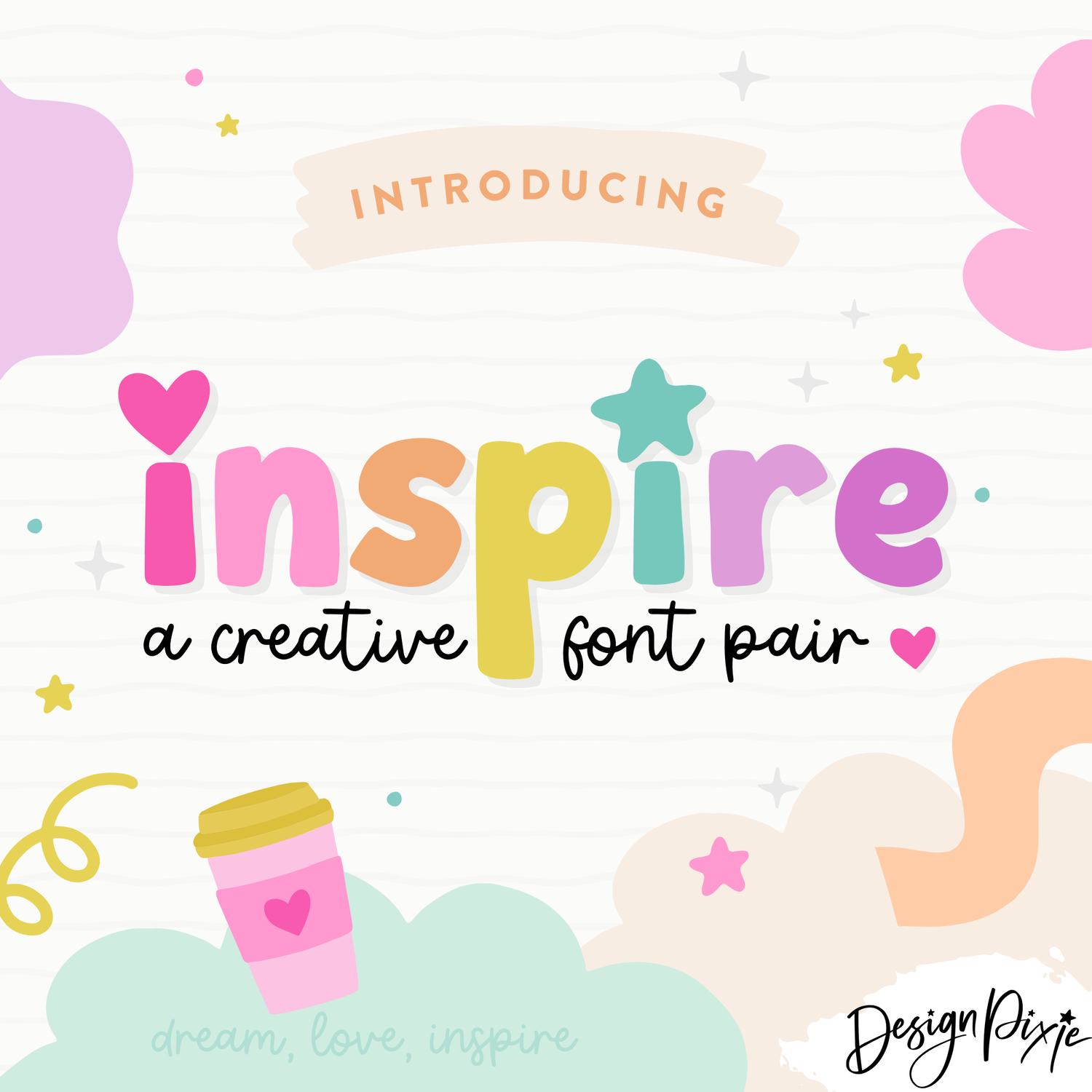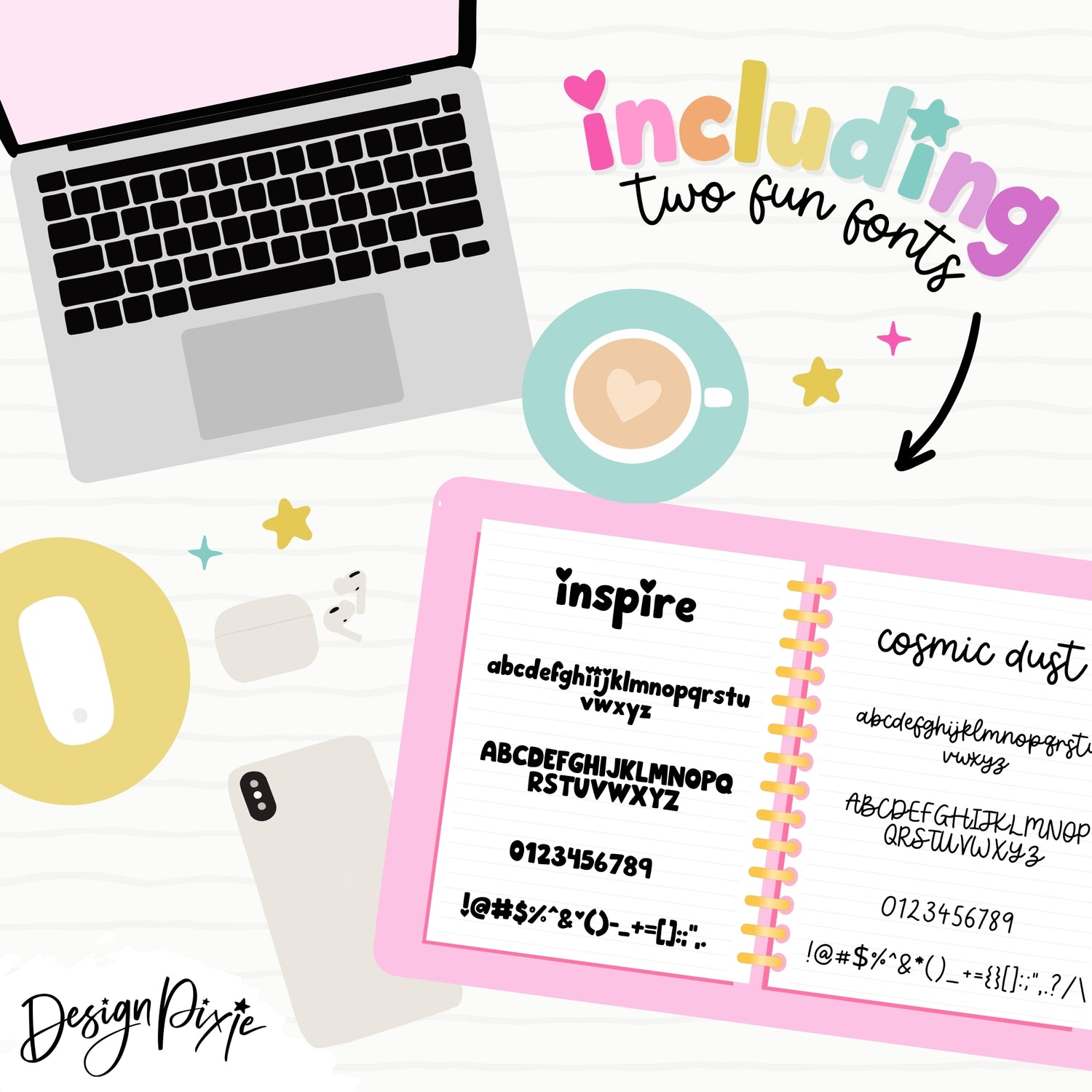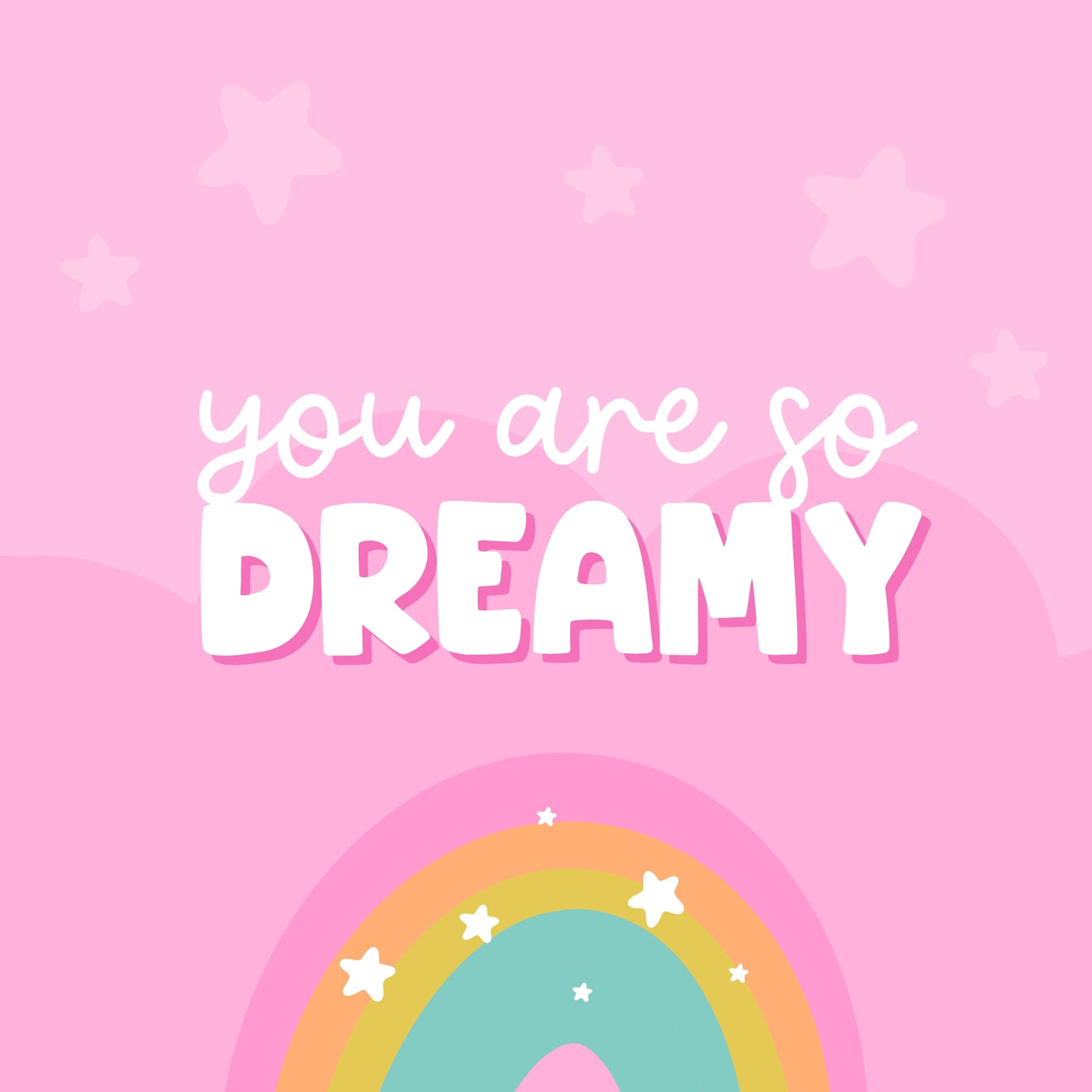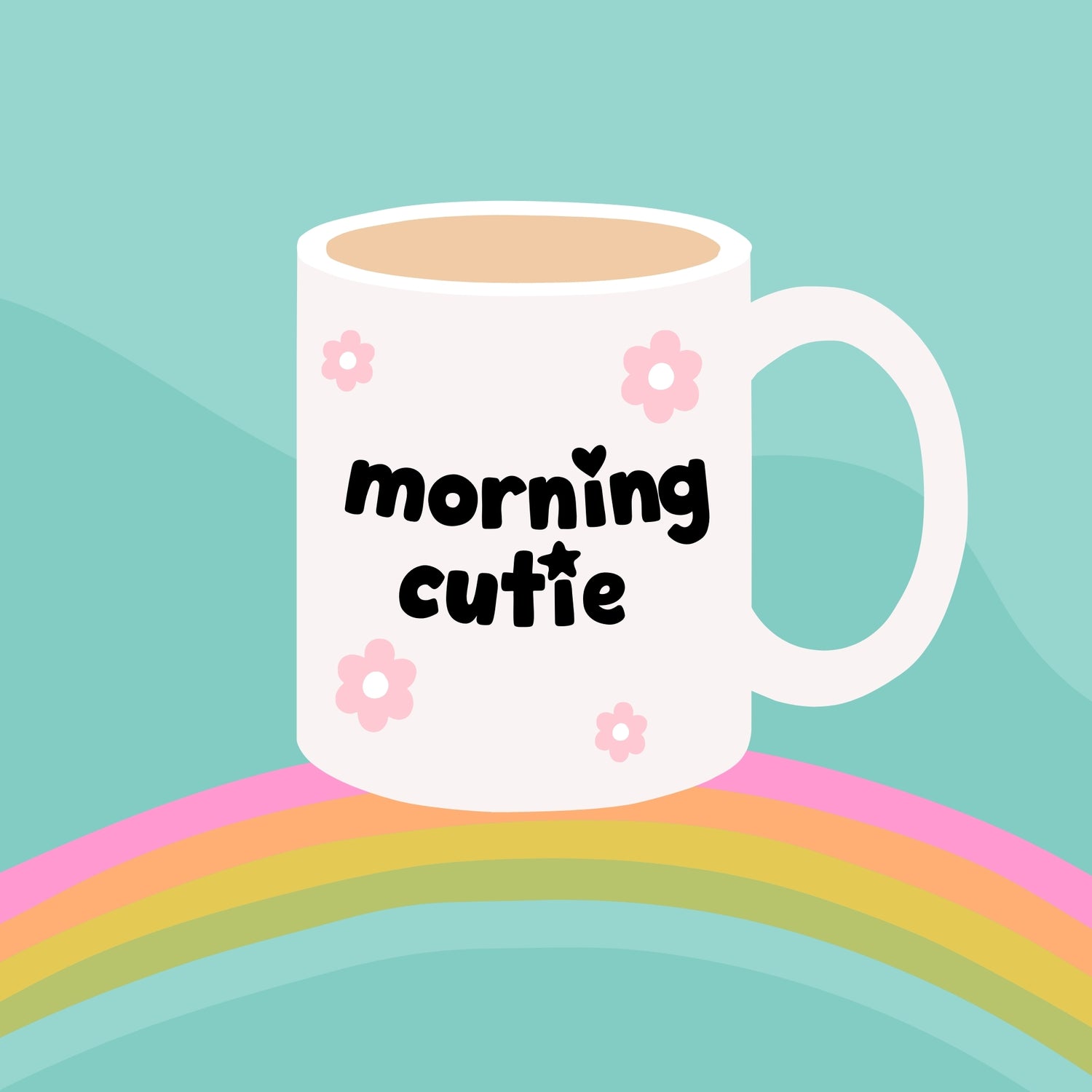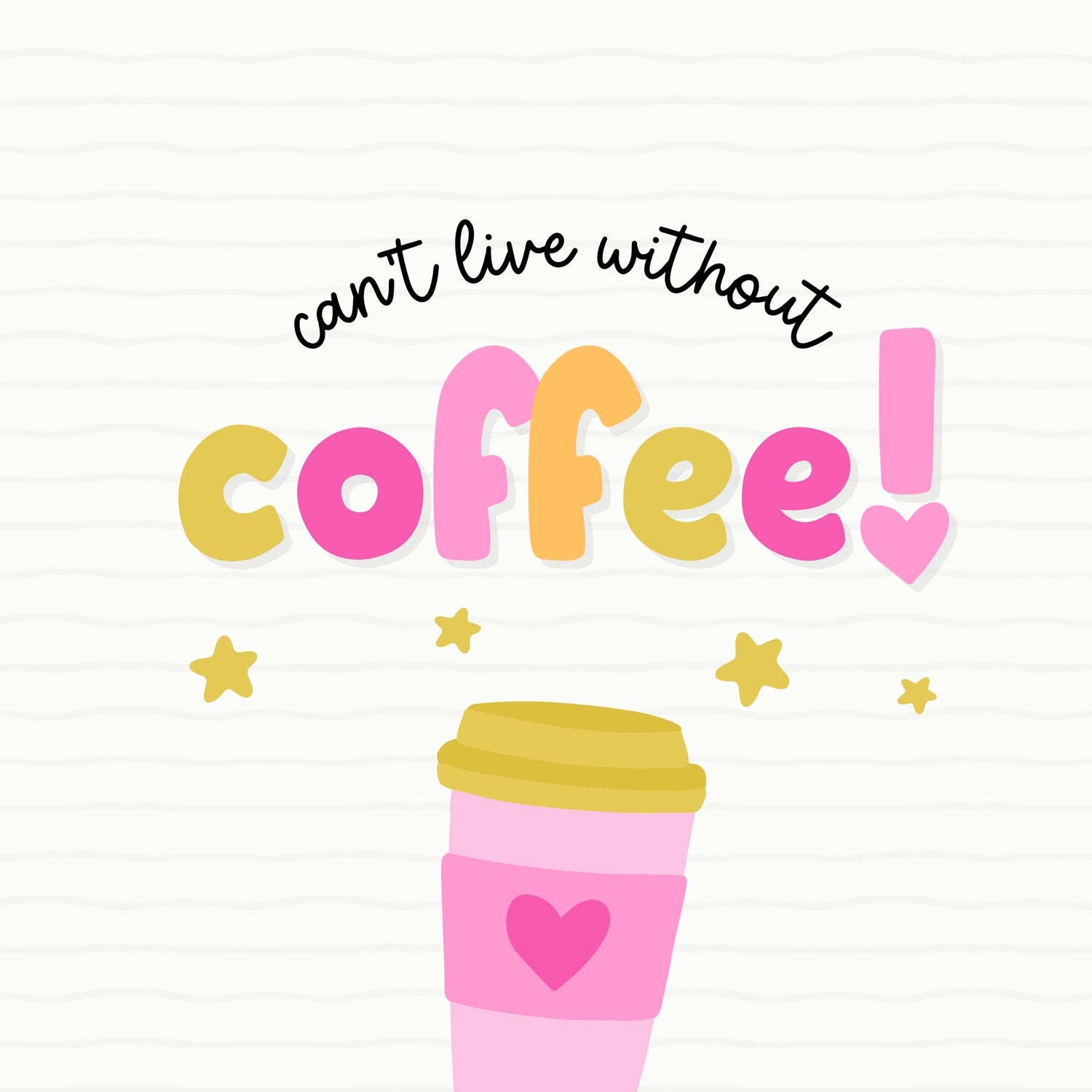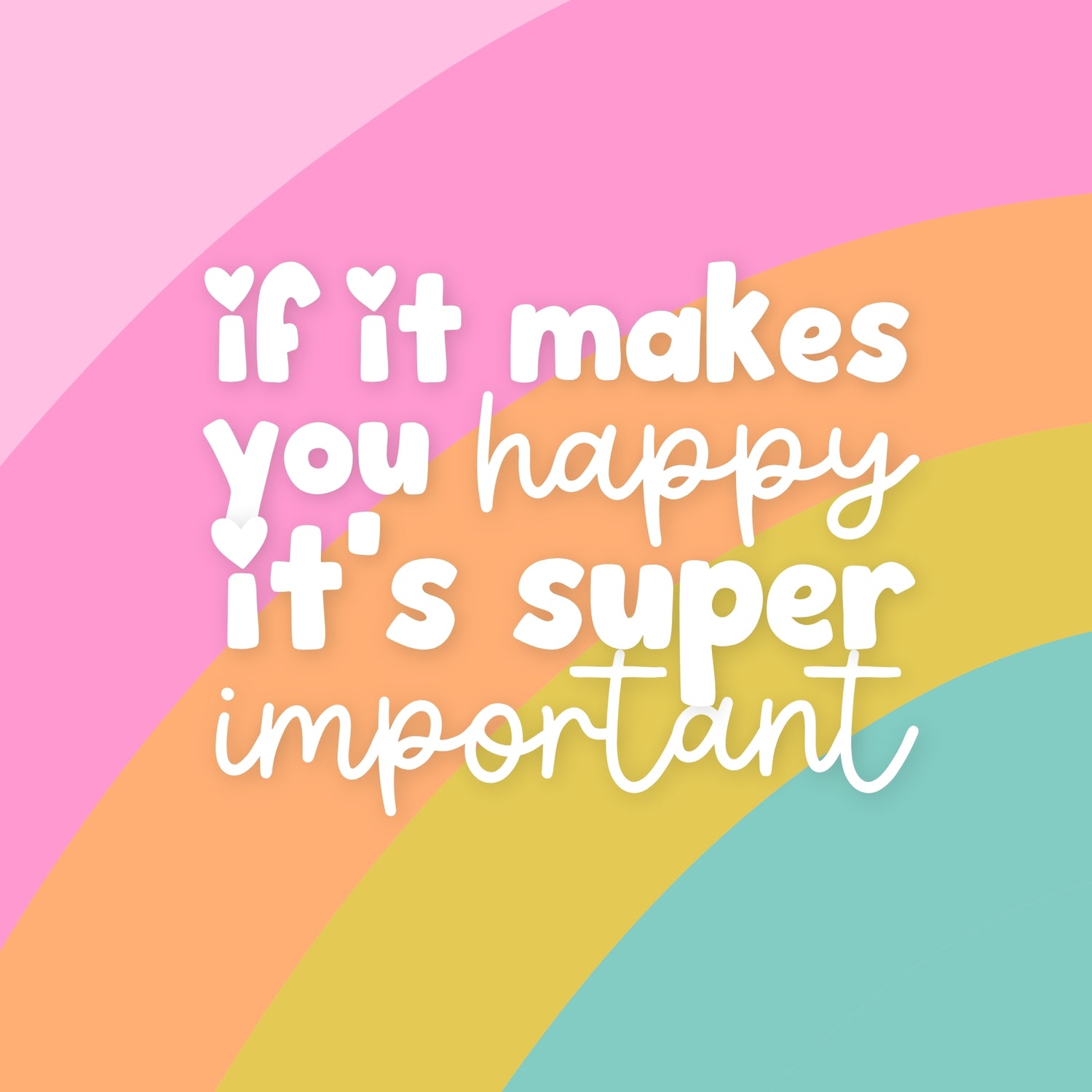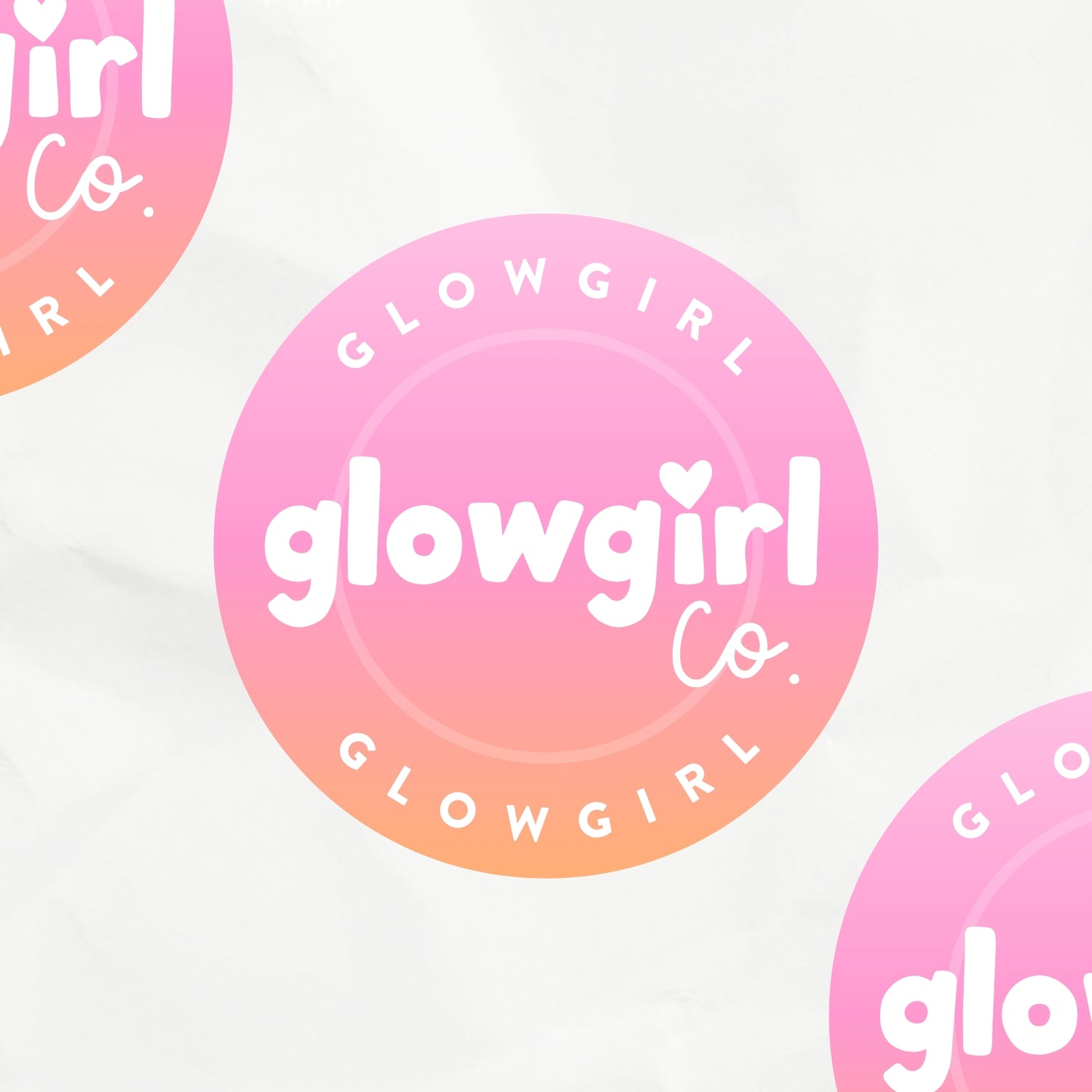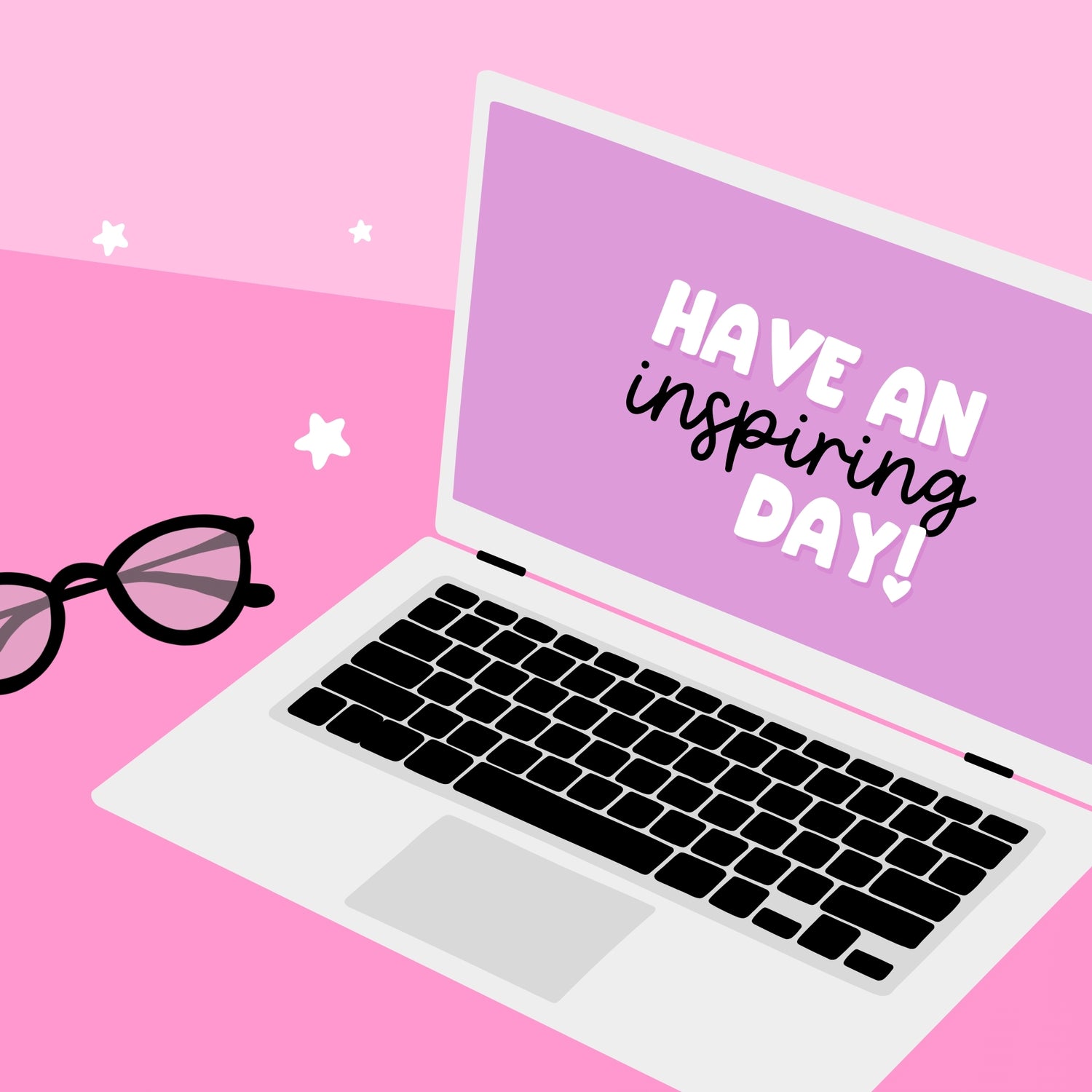
Inspire Font Pair
Introducing the perfect font pair for your next creative project! Meet Inspire and Cosmic Dust, two charming handwritten fonts that will add a touch of personality and flair to your designs.
Inspire is a cute, bold handwritten font that stands out with its playful details. Choose between a heart or a star on the dot of the "i" to make your text truly unique. This font is perfect for making your lettering projects pop, whether you’re designing greeting cards, social media graphics, or personalized gifts.
Cosmic Dust pairs perfectly with Inspire. This handwritten monoline script font brings a bouncy quirk to your designs, making it perfect for pairing with the bold style of Inspire. Together, these fonts create a harmonious balance that’s both eye-catching and endearing.
Whether you’re crafting logos, quotes, or any creative project, this font duo will give your designs the cute, custom look they deserve. Elevate your work with Inspire and Cosmic Dust—the fonts that add a sprinkle of fun and a dash of charm to every project.
The Inspire font pair is perfect for adding a unique touch to a wide range of creative projects. Whether you're designing eye-catching logos, whimsical social media graphics, heartfelt greeting cards, or custom apparel, these fonts will bring your ideas to life with their playful charm and elegant simplicity. Their versatility makes them ideal for both professional design work and personal projects, allowing you to create memorable, personalized pieces that stand out.